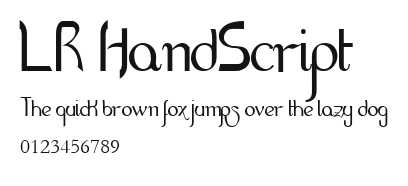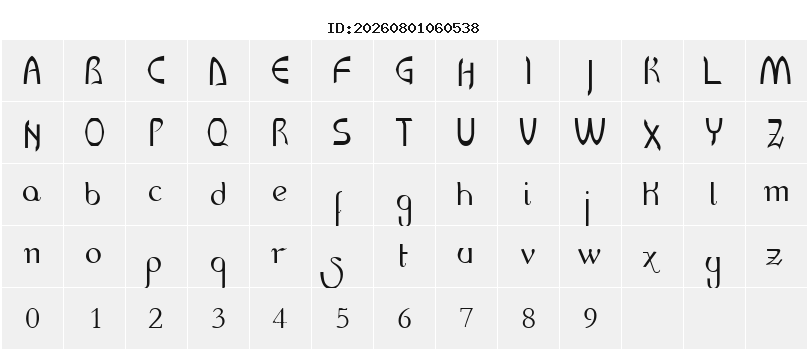
• Font Name: LR HandScript
• Full Font Name: LR HandScript
About LR HandScript.ttf
LR HandScript.ttf is a modern, elegant sans-serif font designed for ultimate readability and visual harmony. Perfect for branding, headlines, web design, and print materials.